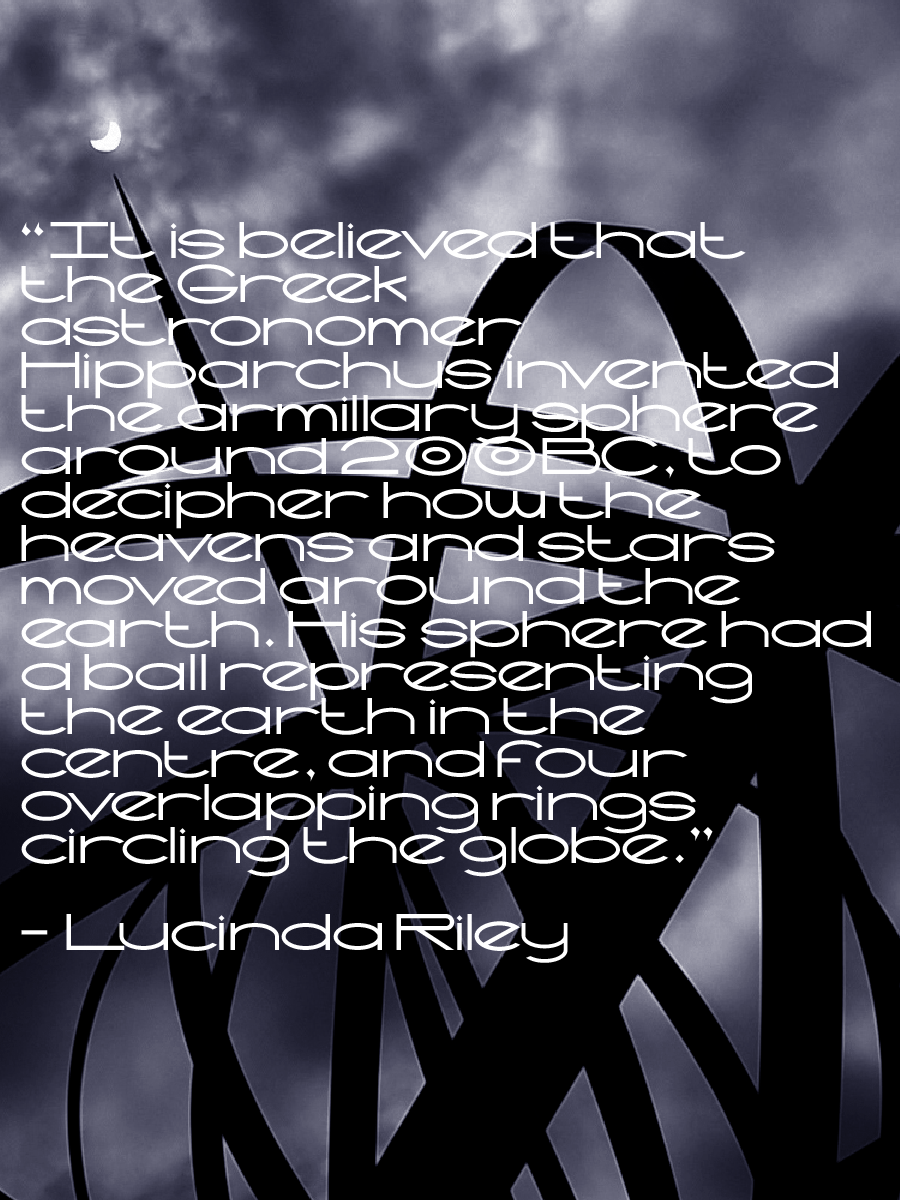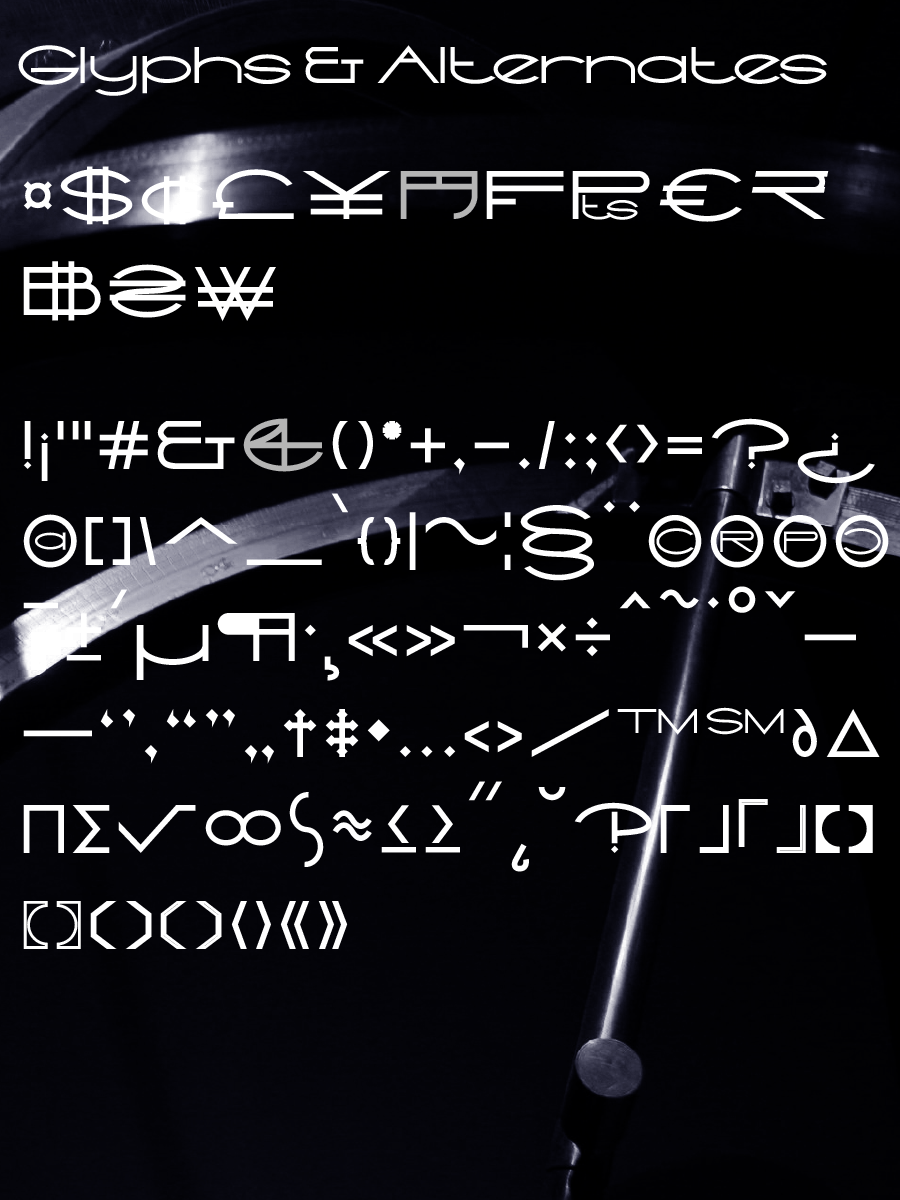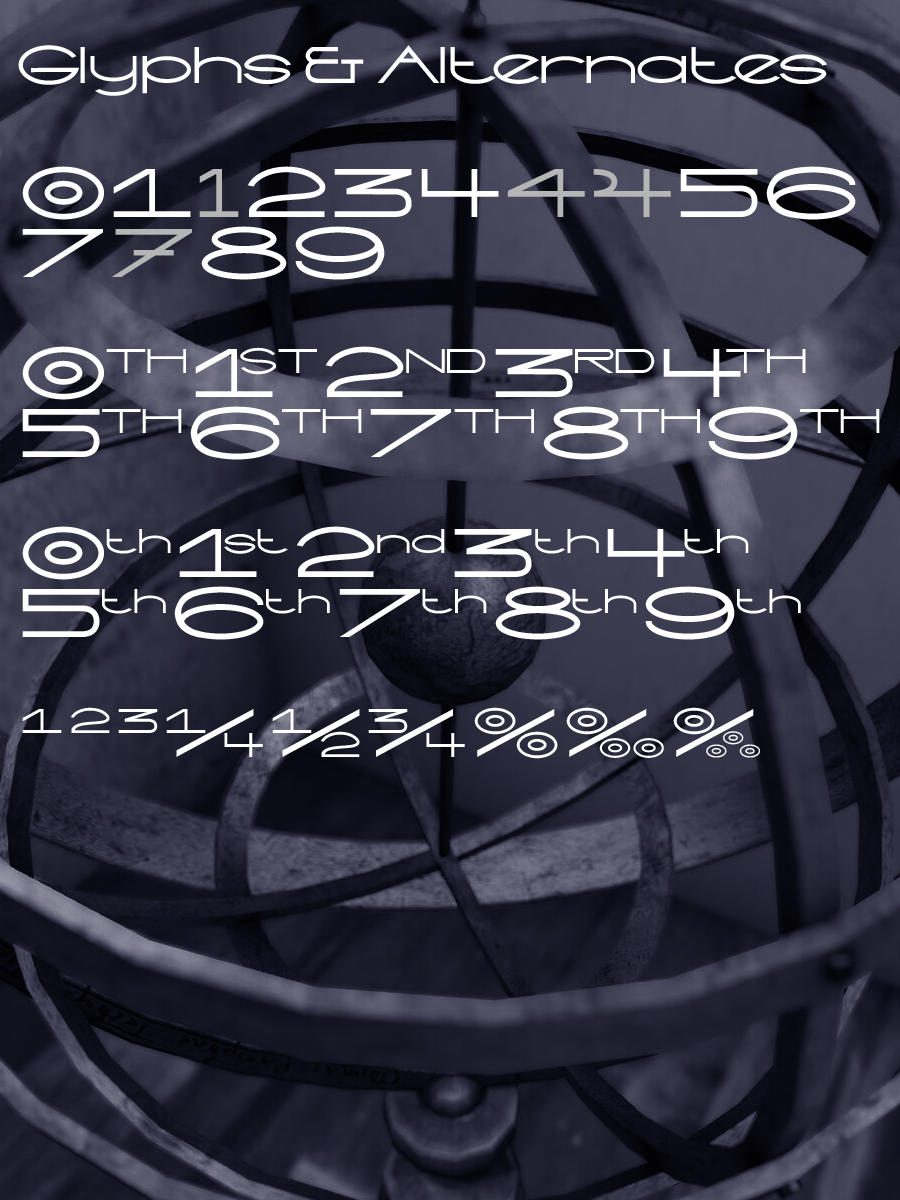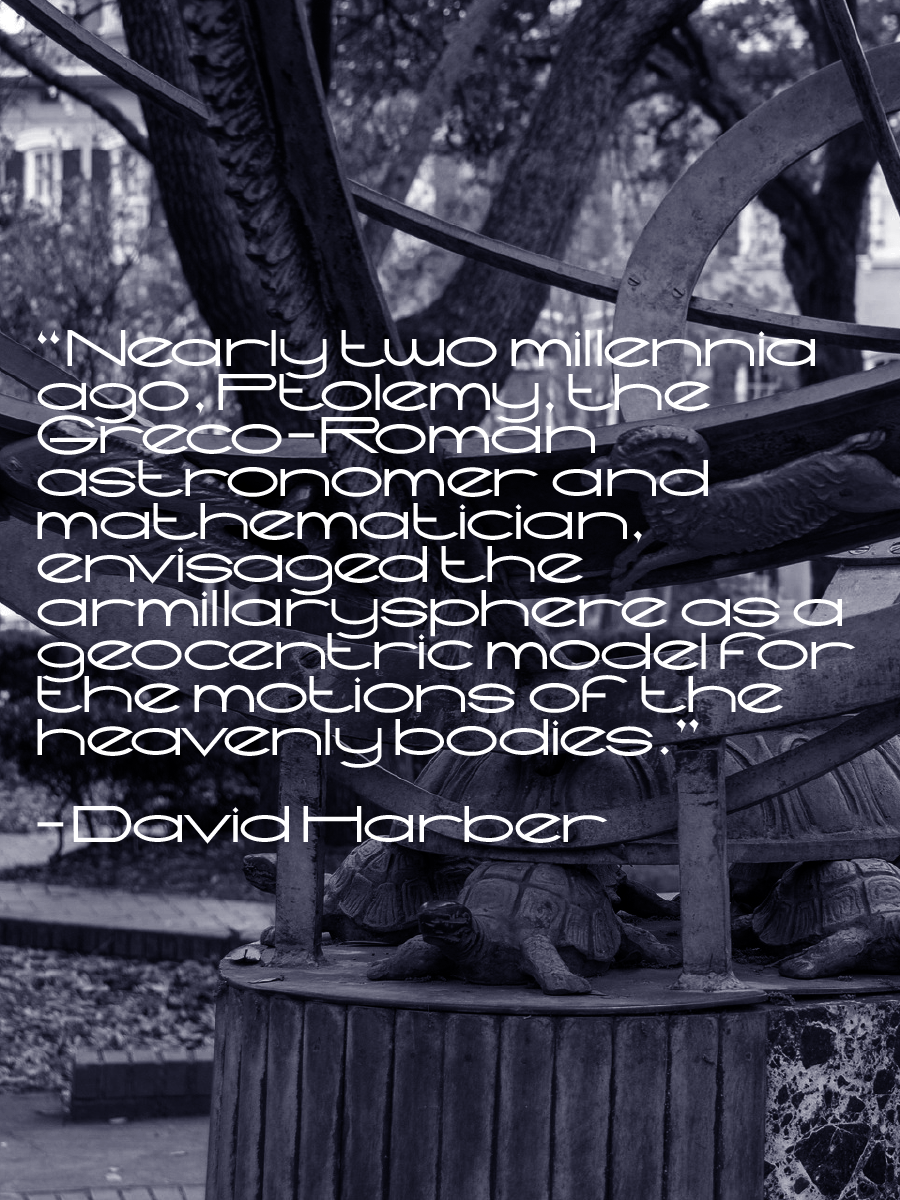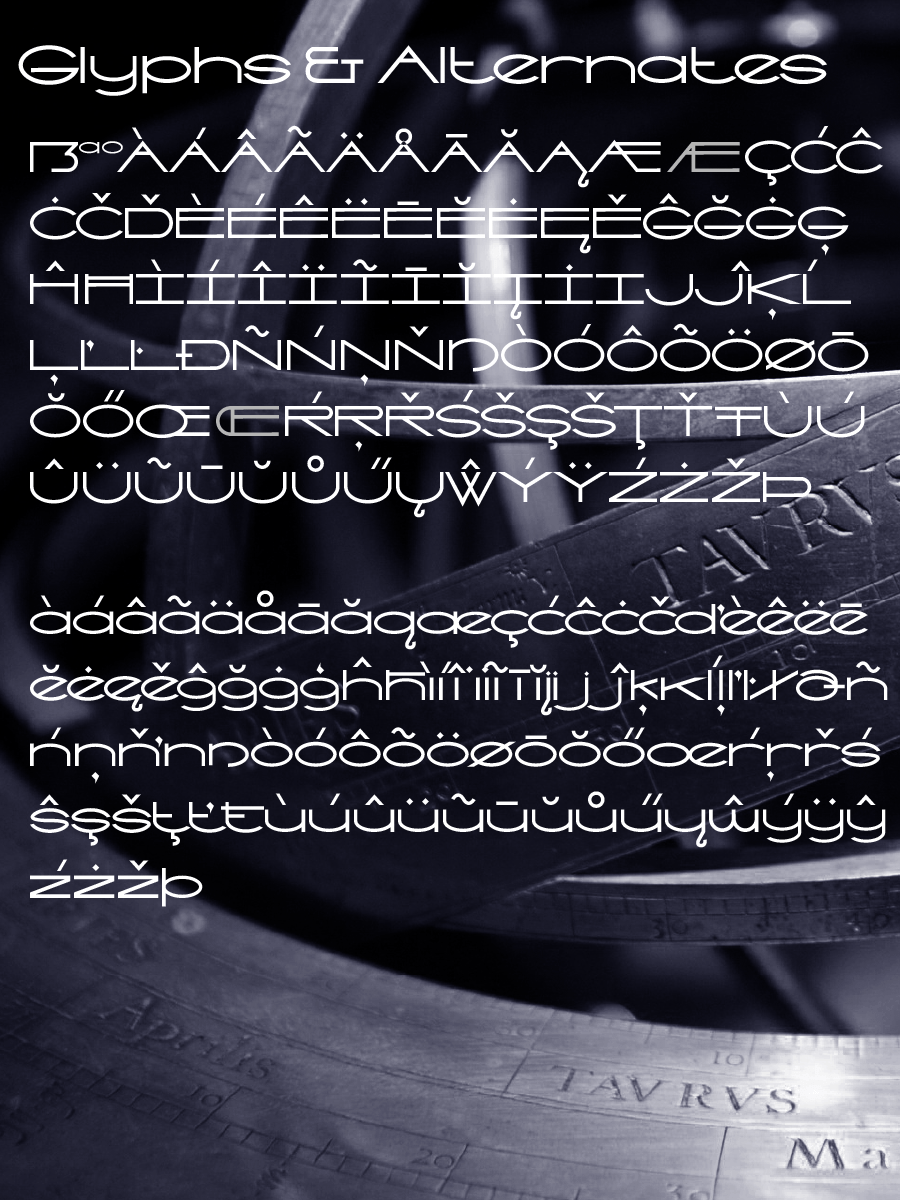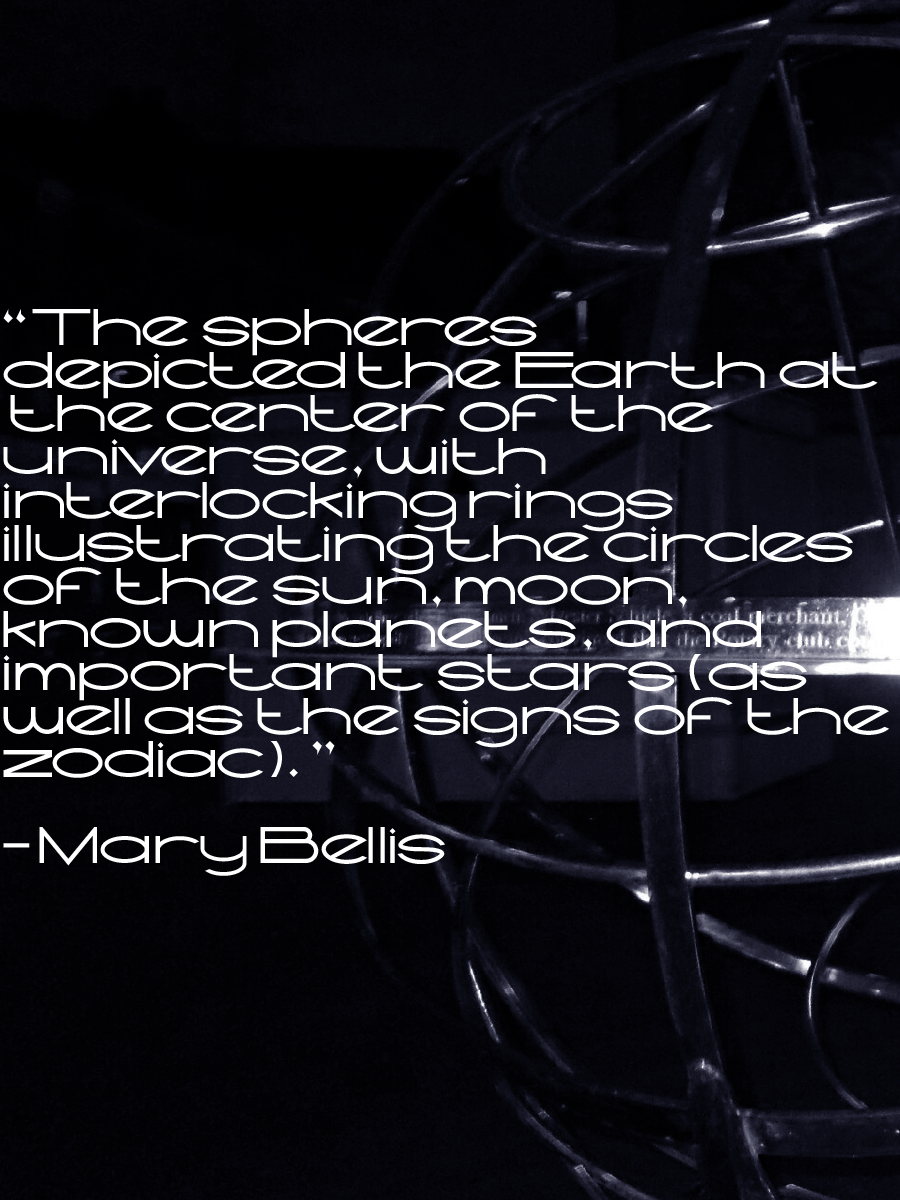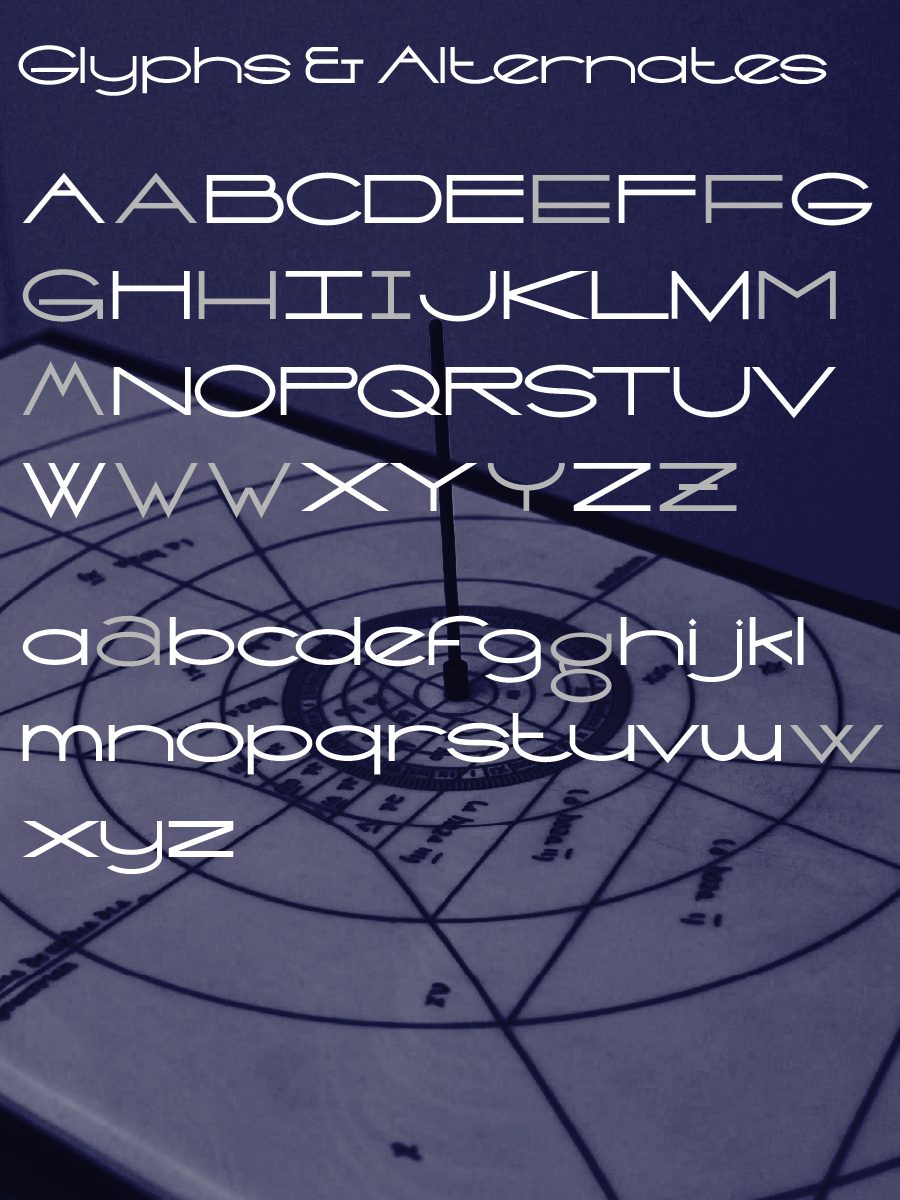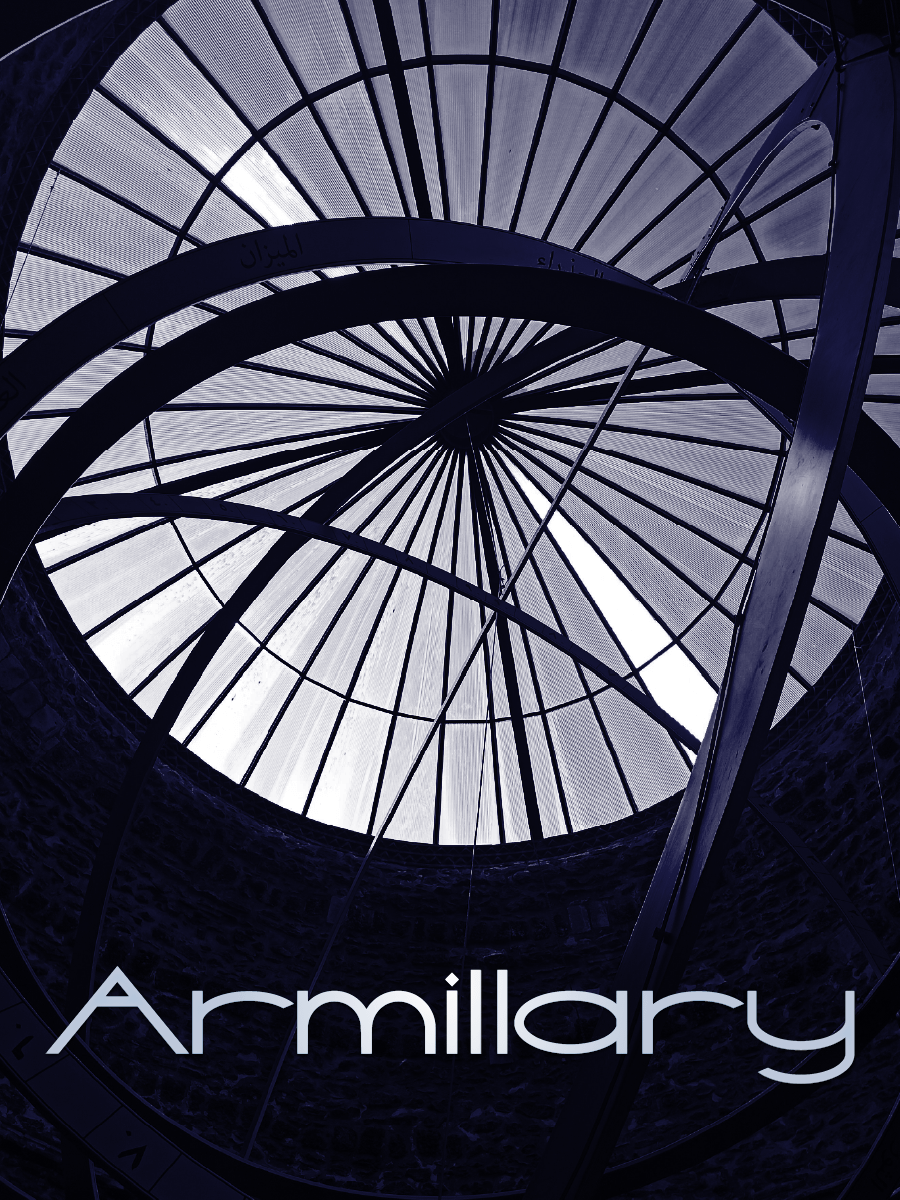
Armillary font
This font takes heavy influence from the armillary sphere (also known as a spherical astrolabe, armilla, or armil.  A  model of objects in the sky (on the celestial sphere), consisting of a spherical framework of rings, centered on Earth or the Sun, that represent lines of celestial longitude and latitude and other astronomically important features, such as the ecliptic.
As a result, it's a heavily geometric font, filled with lines and circles, to heavily imply the object its named after.  Stylish and celestial, it's a display font to be used anywhere!